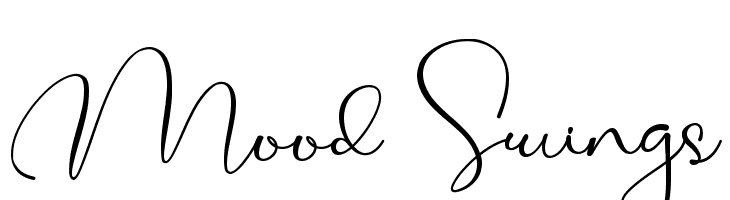
A fluid and elegant script font with a handwritten appearance.
Elegant cursive script font with a handwritten style.
A dynamic and expressive handwritten font with fluid strokes.